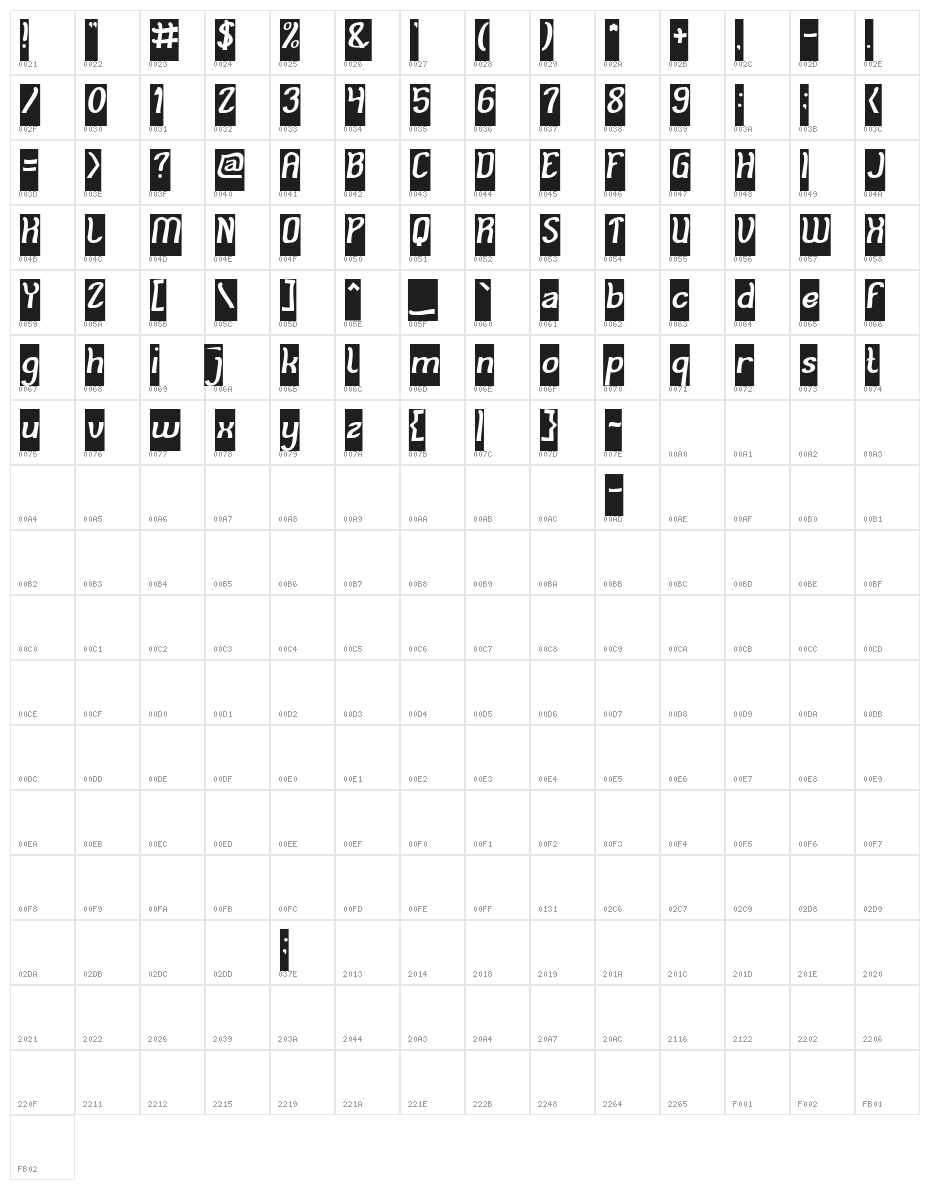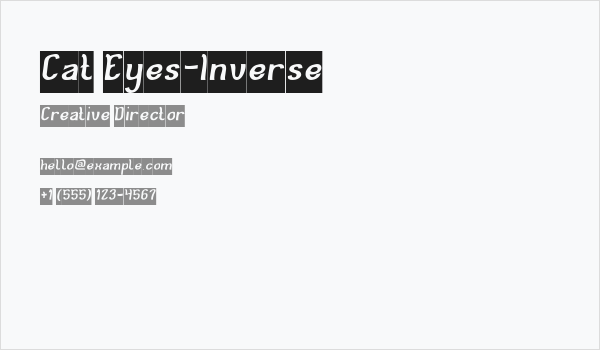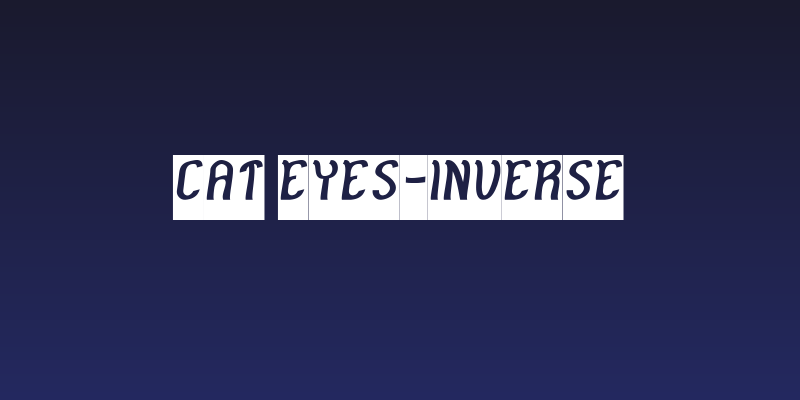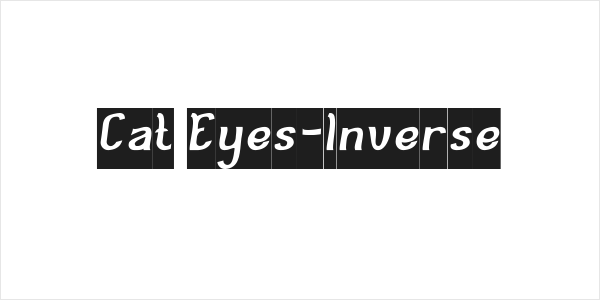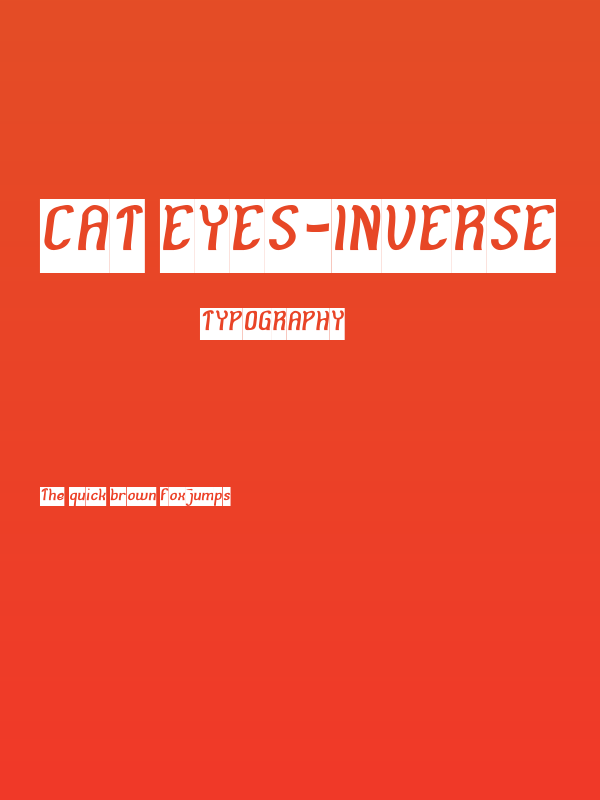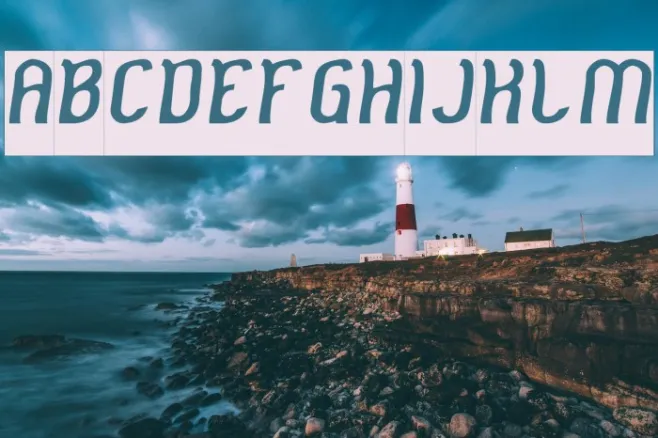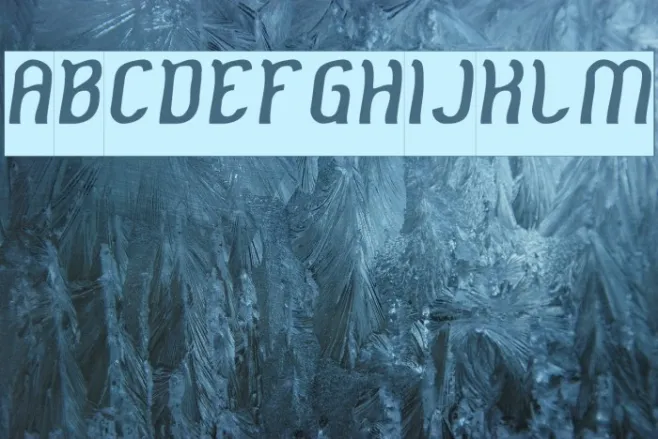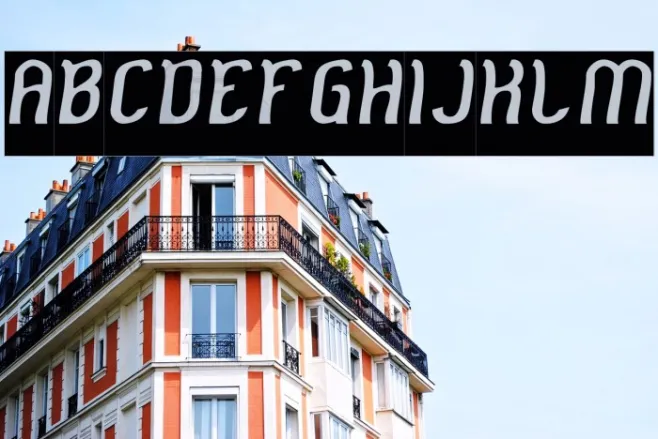
Cat Eyes-Inverse Font
Cat Eyes-Inverse Description
This font features a unique and playful design with a handwritten style that evokes a sense of whimsy and creativity. The characters are bold and slightly italicized, giving them a dynamic and energetic appearance. The strokes are smooth and flowing, with a moderate contrast between thick and thin lines, enhancing readability while maintaining an artistic flair. The uppercase and lowercase letters are well-balanced, and the numerals and special characters are crafted to match the overall aesthetic. This font is ideal for projects that require a touch of personality and charm.
| Overall Style | Playful, Creative |
| Proposed Projects | Ideal for greeting cards, children's books, creative branding, and playful social media graphics. |